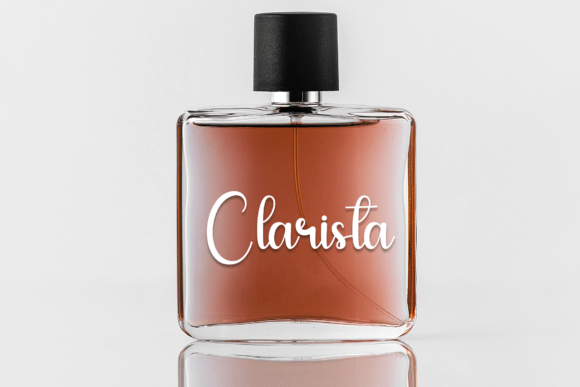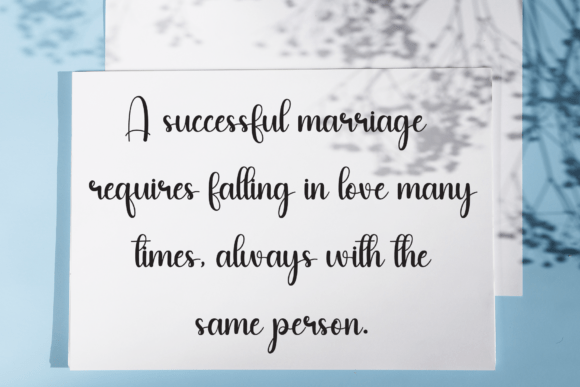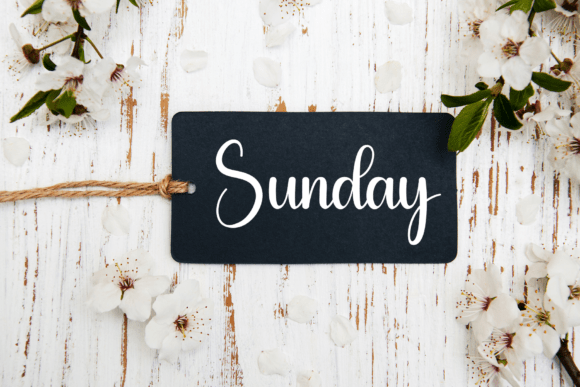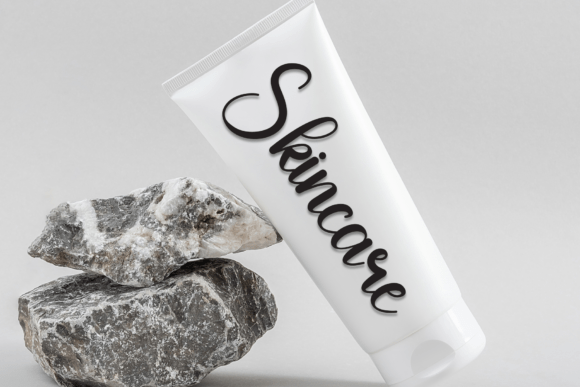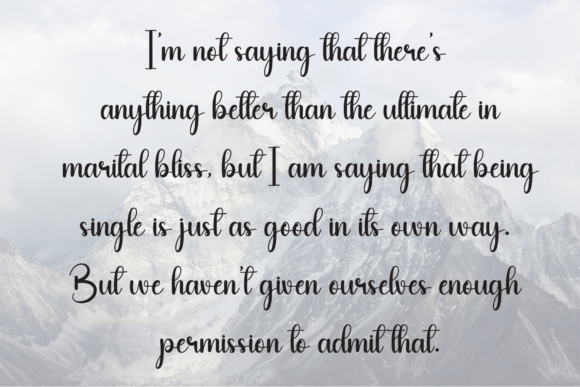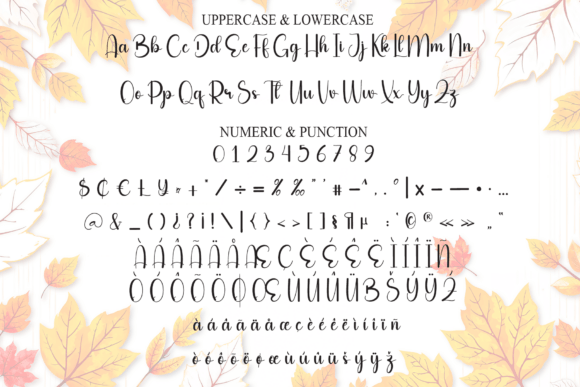
The Magic of Autumn Font: Elevating Your Designs with Elegance and Playfulness
I’ll never forget the moment I stumbled upon the perfect font for a client’s wedding invitation project. I had been searching for what felt like hours, trying out font after font, but nothing seemed quite right. That was until I discovered Autumn Font – a stylish handwritten script font that instantly captured the essence of the couple’s special day. With its fluid strokes and charming curves, Autumn Font brought a personal touch to the invitation that made it truly unforgettable.
An Honest Review of Autumn Font
So, what makes Autumn Font so special? Let’s dive into the details.
• ✨ Modern elegance with a playful touch: Autumn Font strikes the perfect balance between sophistication and whimsy, making it ideal for a wide range of design projects.
• ✅ Fluid strokes and charming curves: The font’s smooth, flowing lines add a personal feel to any design, making it perfect for logos, packaging, and invitations.
• ✅ Warmth and sophistication: Autumn Font brings a sense of coziness and refinement to every project, making it perfect for designers looking to add a touch of elegance to their work.
While Autumn Font is an amazing addition to any design project, there are a few things to keep in mind:
• ⚠️ Legibility at small sizes: Like many script fonts, Autumn Font can be a bit tricky to read at very small sizes. Be sure to test it out at different sizes to ensure it works for your project.
• 🤔 Overuse of swashes: While Autumn Font’s swashes and stylistic alternates are a beautiful addition to the font, it’s easy to overdo it. Use them sparingly to add visual interest without overwhelming the design.
The Story Behind Autumn Font
Autumn Font was designed with the goal of creating a font that would bring a touch of elegance and playfulness to any design project. Inspired by the natural beauty of the autumn season, the font’s creator aimed to capture the warmth and sophistication of the season in a single, versatile typeface.
Font Name Autumn Font
Q: What type of projects is Autumn Font best suited for?
A: Autumn Font is ideal for logos, packaging, invitations, and any other design project that needs a touch of elegance and playfulness.
Q: Does Autumn Font come with OpenType features?
A: Yes, Autumn Font includes a range of OpenType features, including swashes, stylistic alternates, and ligatures.
Q: Is Autumn Font easy to read?
A: Autumn Font is generally easy to read, but like many script fonts, it can be a bit tricky at very small sizes. Be sure to test it out at different sizes to ensure it works for your project.